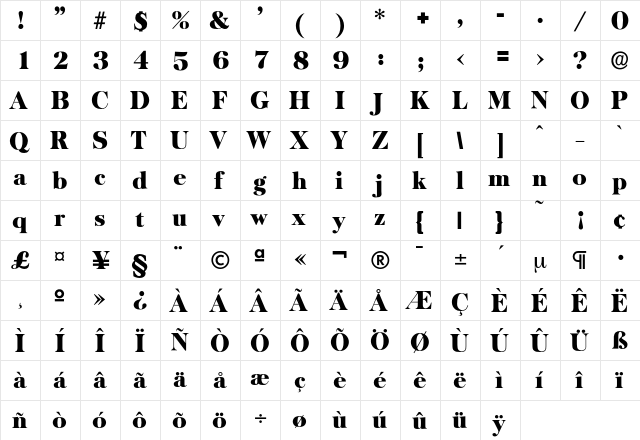
Baskerville-Heavy Regular
Design Context for Baskerville-Heavy Typeface
Baskerville-Heavy is a composed and adaptable typeface that performs quietly and consistently across a wide range of design contexts.